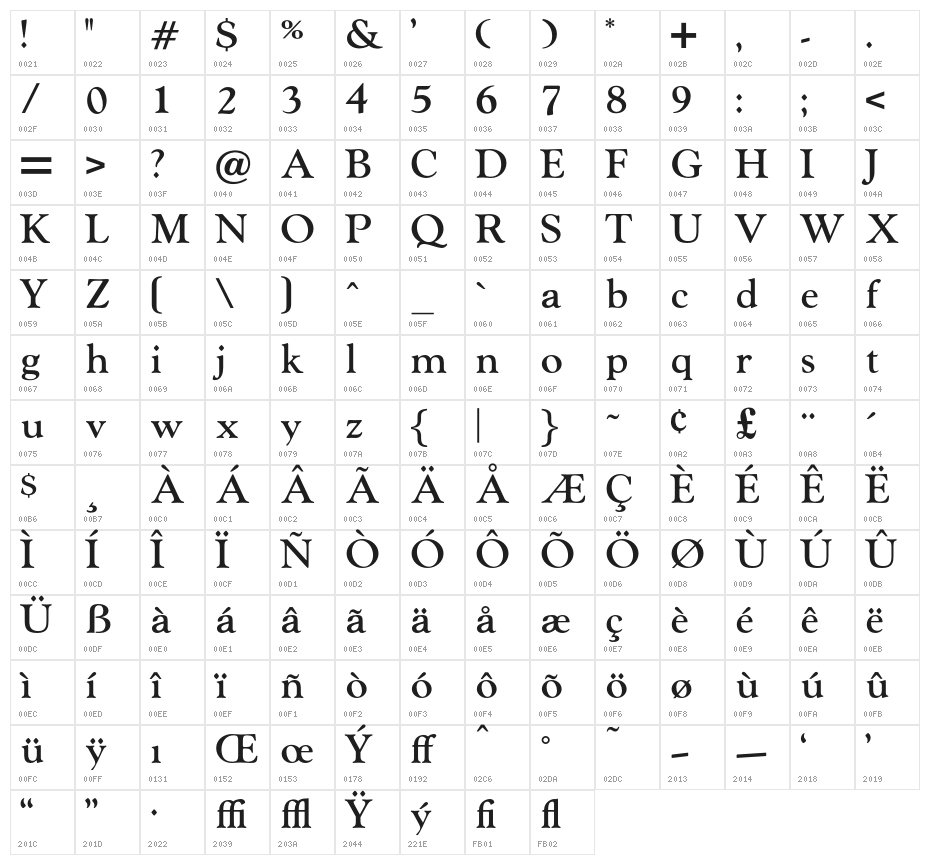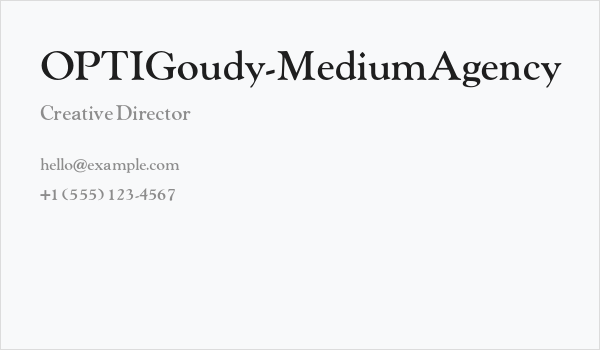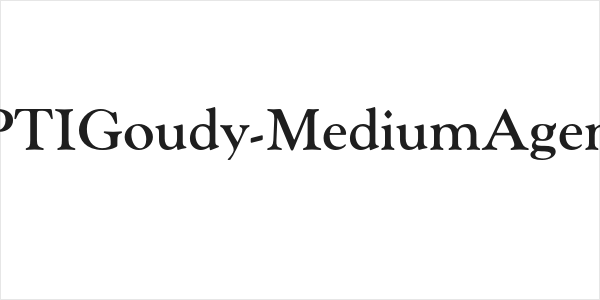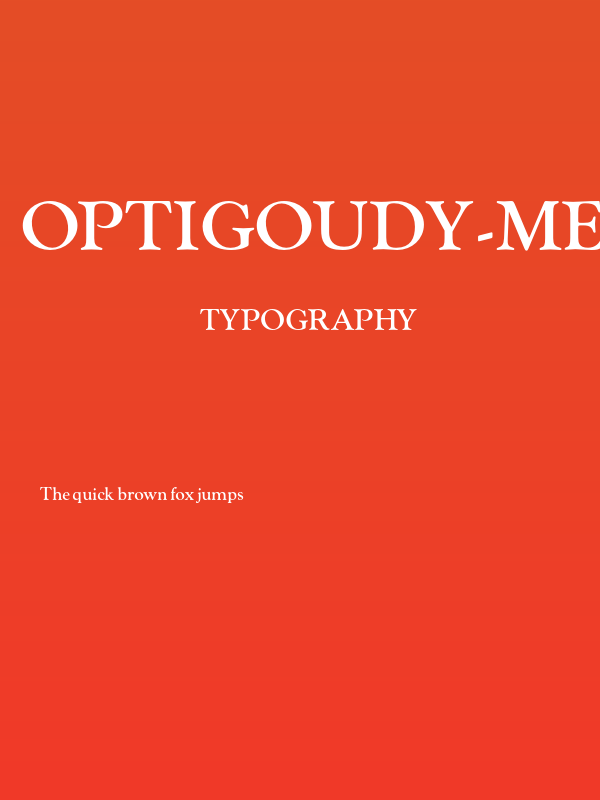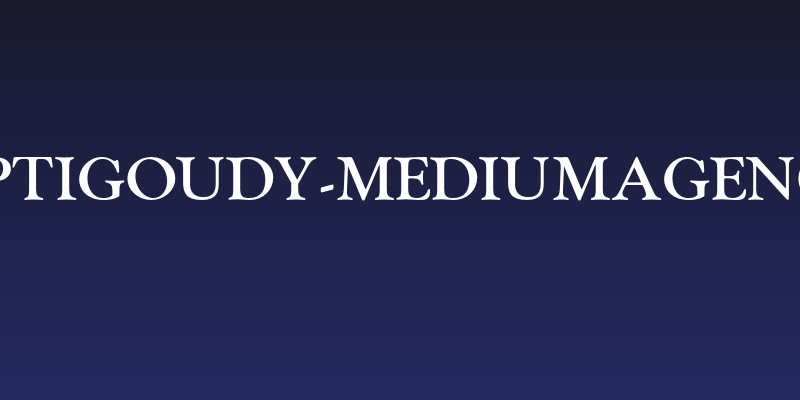
OPTIGoudy-MediumAgency Font
OPTIGoudy-MediumAgency Description
This font exhibits a classic serif style with elegant and refined letterforms. The uppercase characters are bold and commanding, while the lowercase letters maintain a graceful and flowing appearance. The numerals are well-proportioned, complementing the overall aesthetic. The special characters are distinct and harmonize with the rest of the typeface, making it versatile for various applications. The font's design is rooted in traditional typography, offering a timeless appeal that is both sophisticated and readable.
| Proposed Projects | Ideal for book covers, editorial design, formal invitations, and branding projects that require a touch of elegance and tradition. |